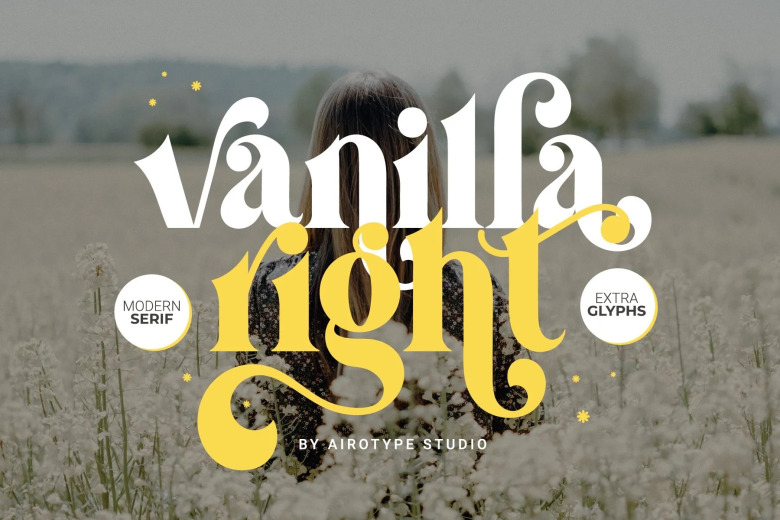
Vanilla Right Font
Vanilla Right is a modern serif font with a fresh and beautiful look. It’s modern and has a classic vintage look as well. It doesn’t come with a million different weights – but it doesn’t need them. OpenType features add to the natural look.
There are extra glyphs to give more options for crafters in design. The swirly extras will make it look classy and elegant. Vanilla Right can be fits in any projects, modern or even retro vintage, design, branding, logo, crafting, sticker, sublimation, wedding invitation, and many more.
Vanilla Right Serif Font